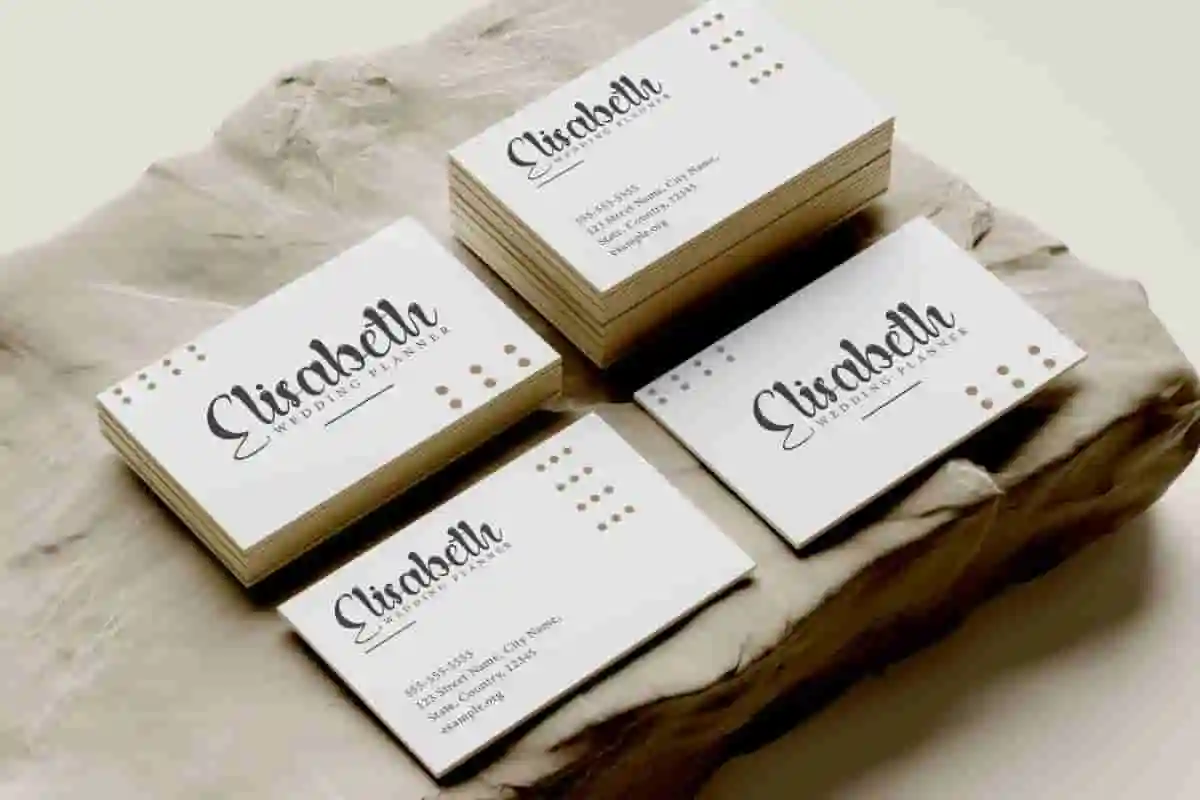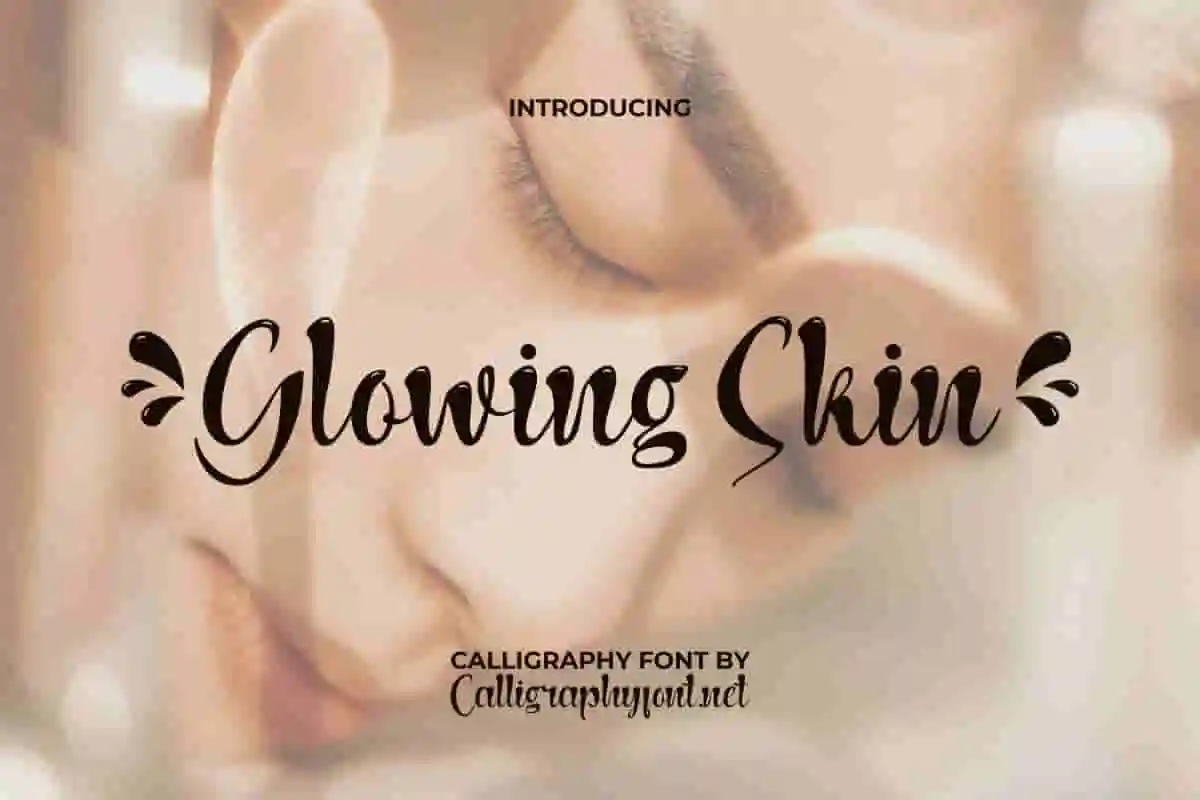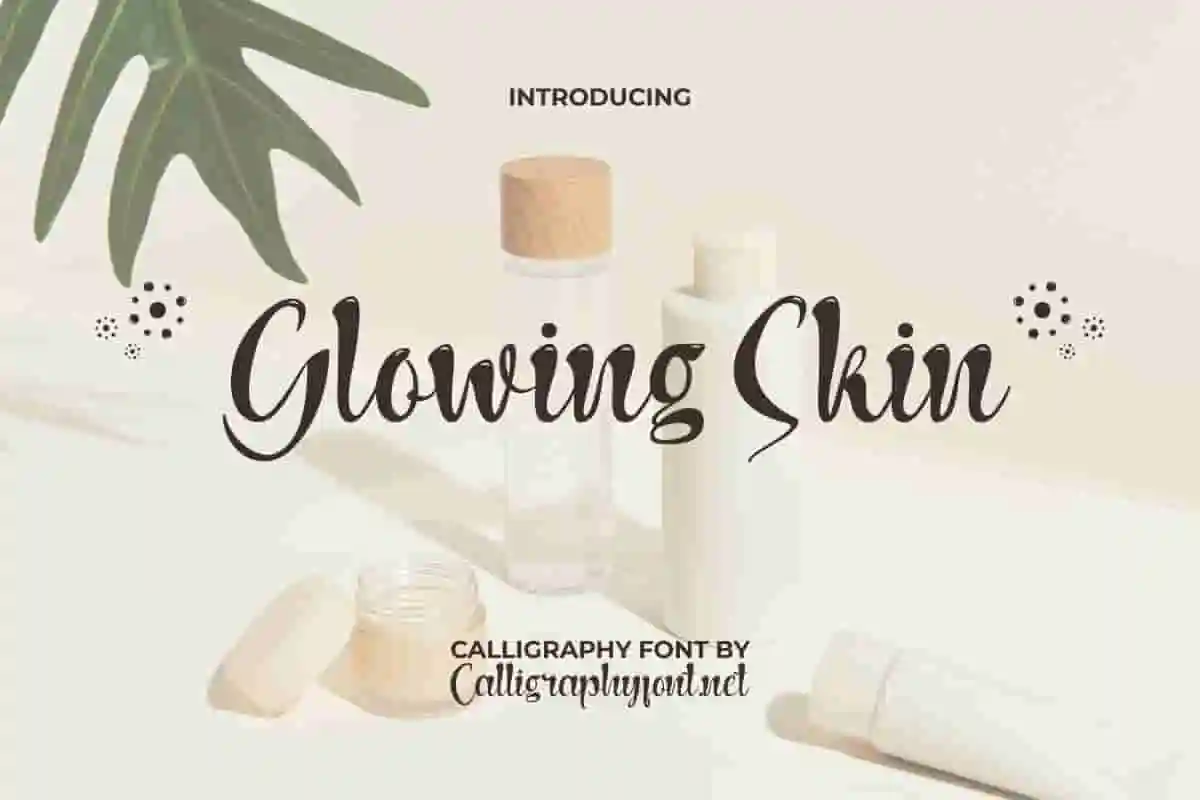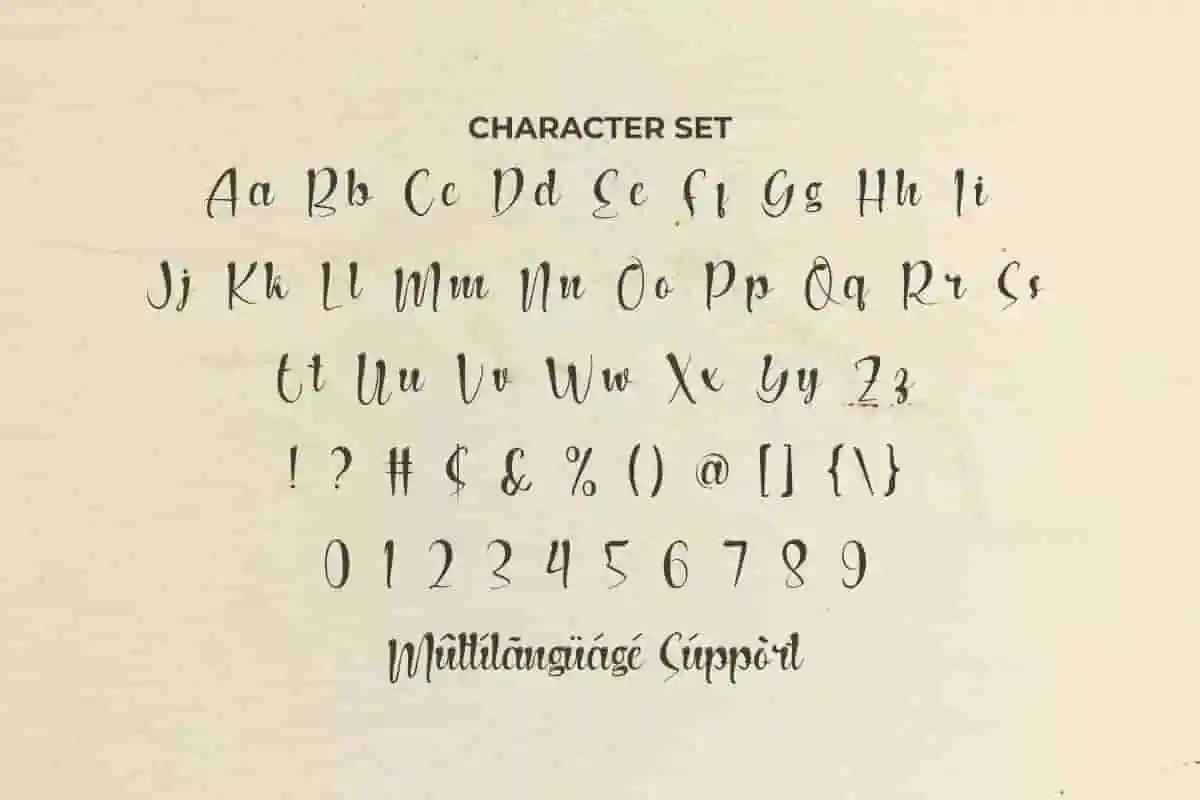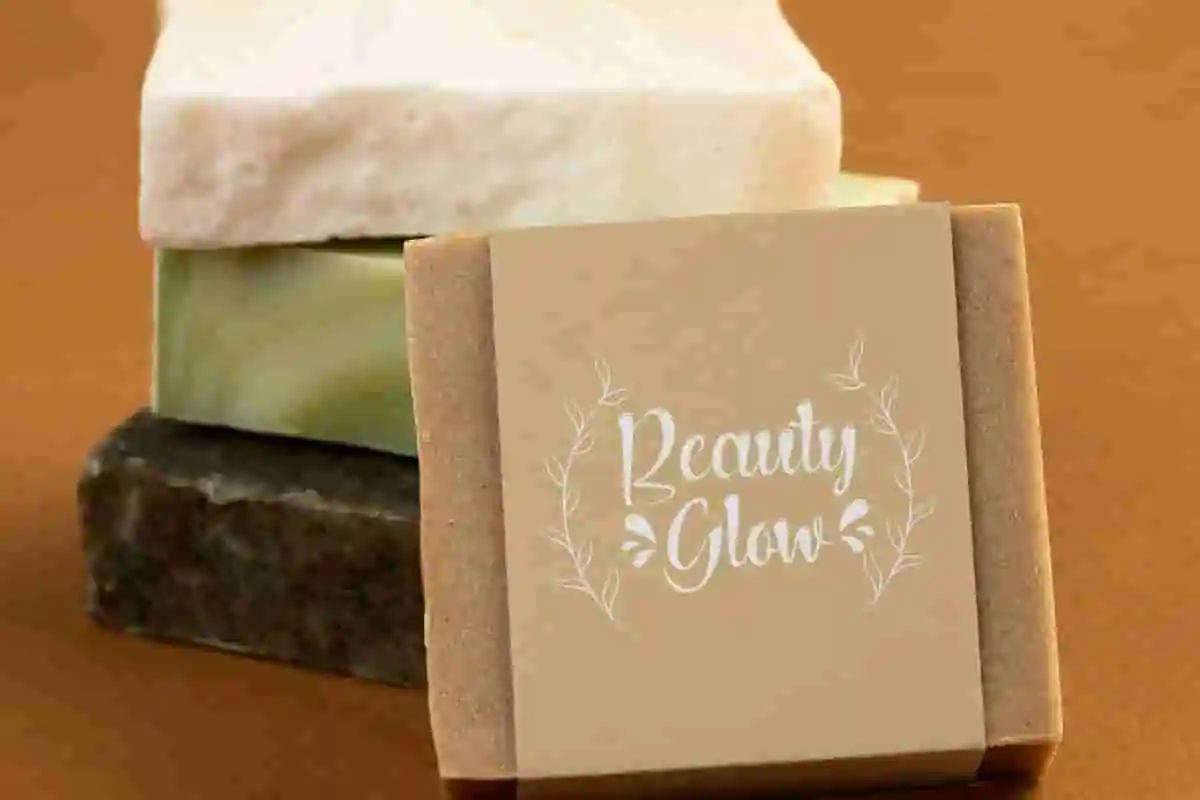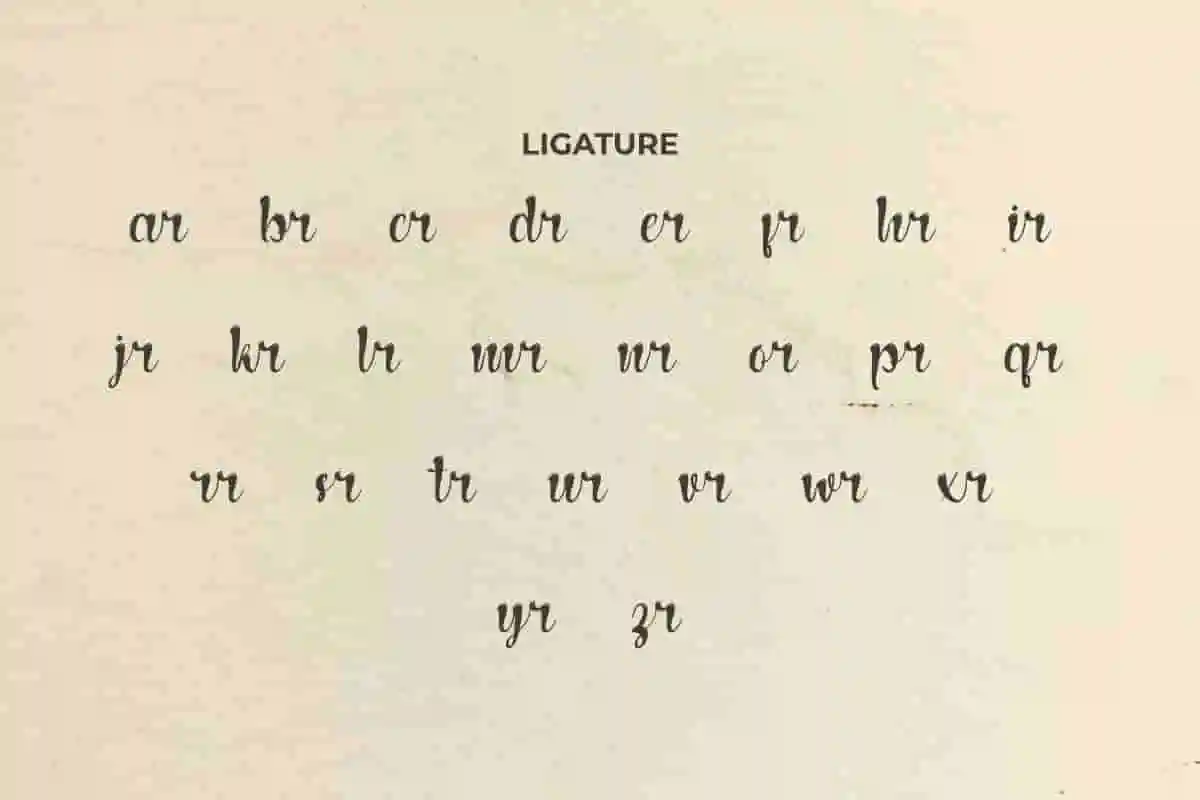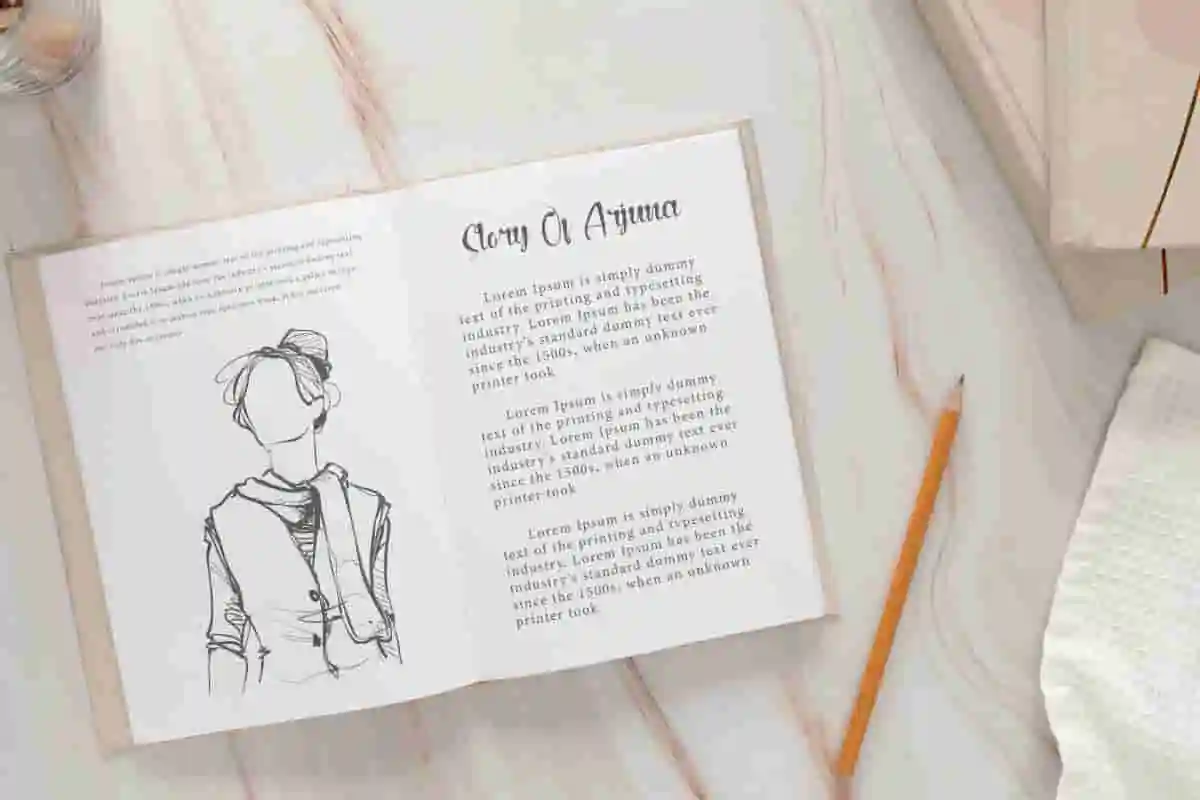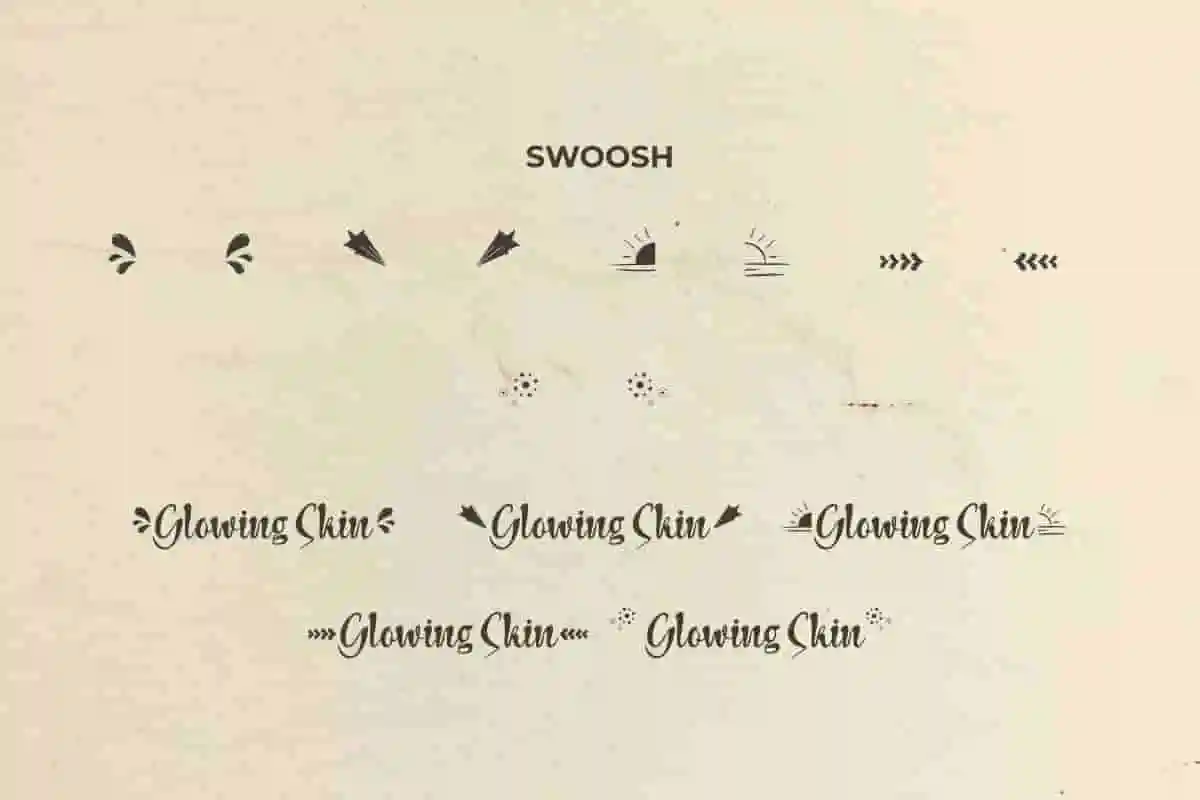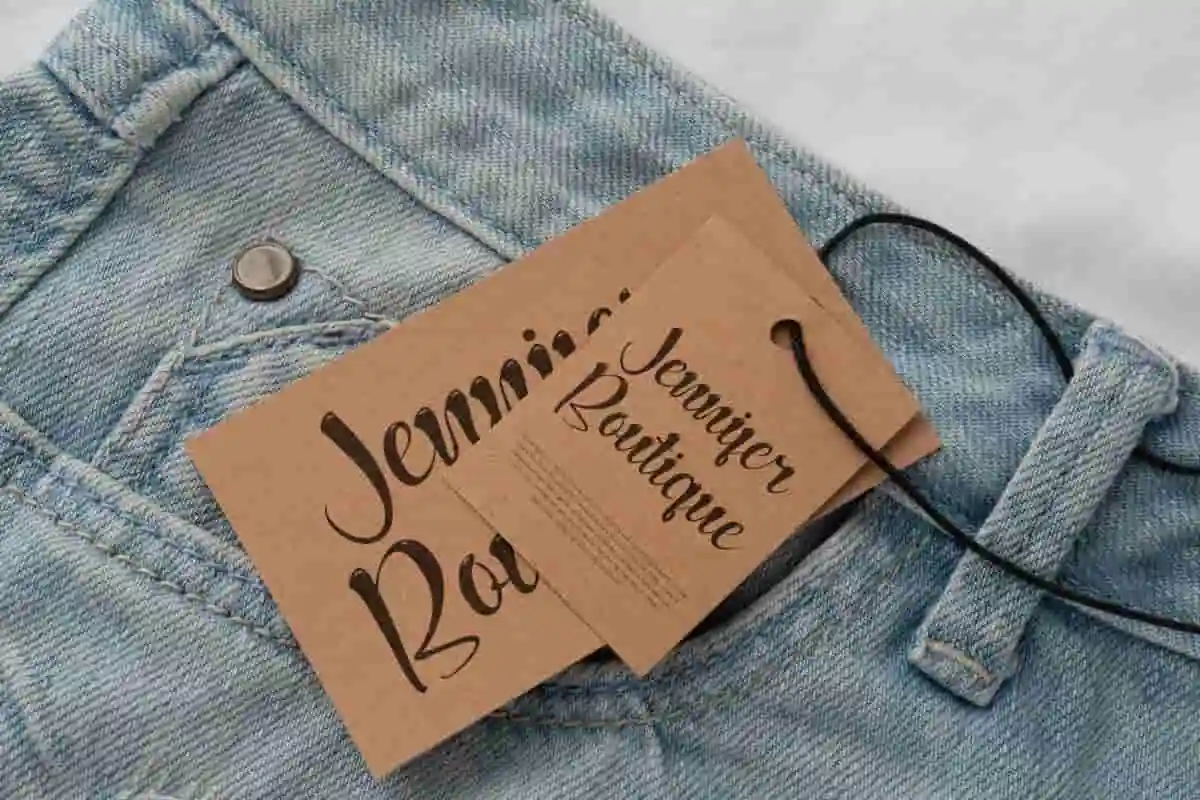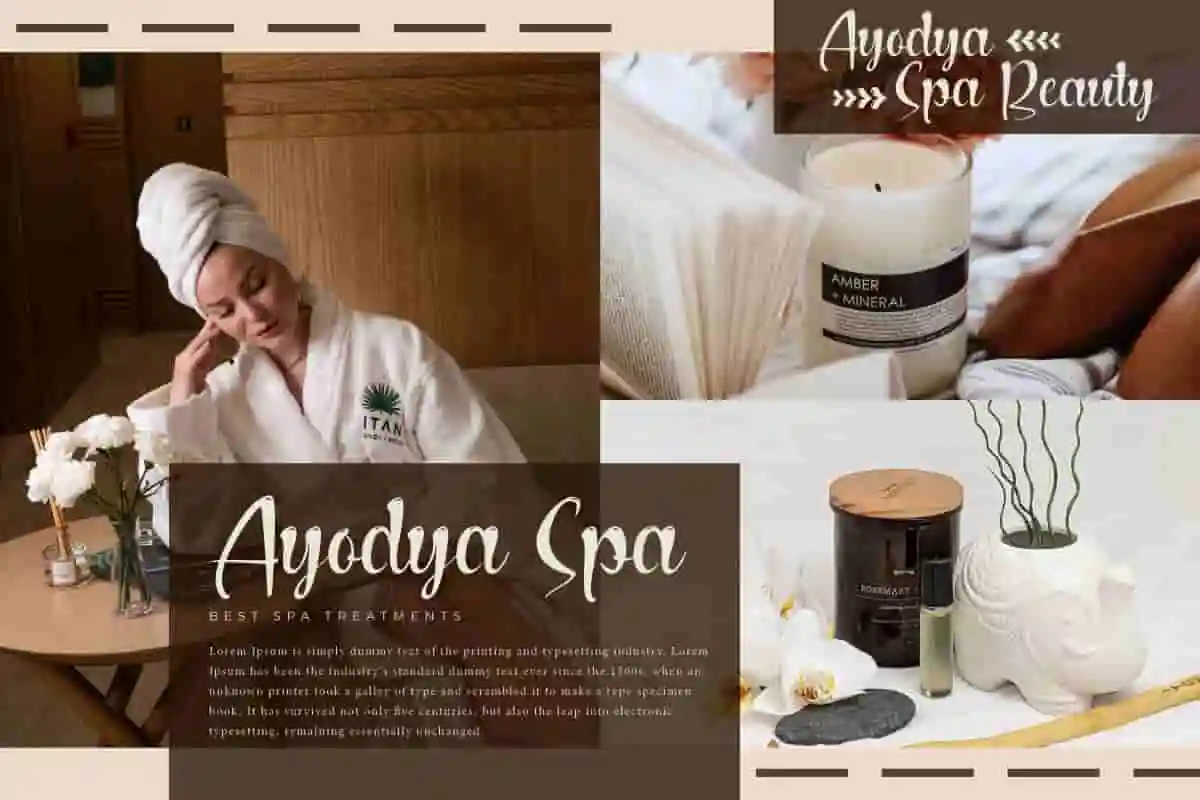
Glowing Skin Font
Glowing Skin Font is a stylish and special calligraphy font that will make it suitable for cosmetic labels, restaurant, spas, fashion, writer, etc
Glowing Skin Font is a stylish calligraphy with glow stroke selection, created by CalligraphyFonts. This typeface is inspired by fountain pens, the unique liquid pen writing will be perfect for your creative projects such as : brand logo, business card, headline, labels, signage, website, etc.
Bring a touch of elegance and warmth to your designs with Glowing Skin Calligraphy Font, a modern script typeface crafted to shine in any creative project. With its smooth curves, flowing strokes, and graceful letterforms, this font radiates beauty and sophistication. Perfect for designers, entrepreneurs, and creatives, Glowing Skin Font is your go-to choice for projects that demand a refined yet approachable feel.
Make your words glow as beautifully as your vision. With Glowing Skin Calligraphy Font, every letter becomes a work of art—inviting your audience to connect emotionally with your message.
Glowing Skin Calligraphy Font will be great for any industry including : boutique, fashion brand, homeware, restaurant, salon, spa, wedding organizer, writer, and everything that needs a touch of charming calligraphy. Carefully crafted so as to create perfection in the writing and add aesthetics to every design made, easy to read with stunning look.
Glowing Skin Calligraphy Font comes with a full set of Uppercase and Lowercase Basic Characters, Number, a large range of Punctuation and Symbol, Ligature, Swoosh, and also supports multilingual characters. Ready to use both on Windows machine or Mac with simple installations. It’s tested to work well in the Adobe Apps (Illustrator, Adobe InDesign, Adobe Photoshop) CorelDraw, and others. PUA Encode Characters means you can access all the glyphs and swashes with ease – Fully accessible without additional design software.